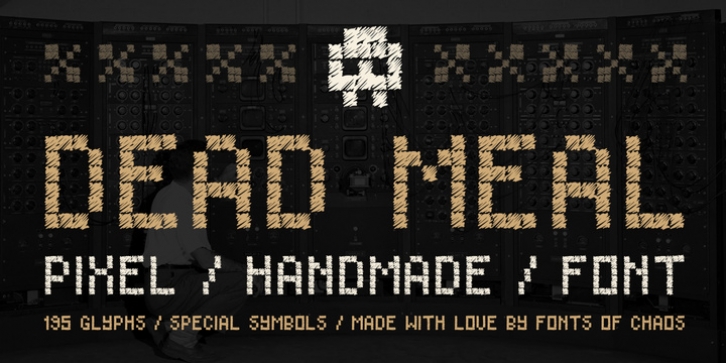
Dead Meal was designed by David Slaager and published by Fonts of Chaos. Dead Meal contains 1 style.
Dead Meal is a cute hand made font made for pixel art style. Yes a mix of handmade pixel font style. Say like that is weird but trust me, it's simple useable for print works and web works.